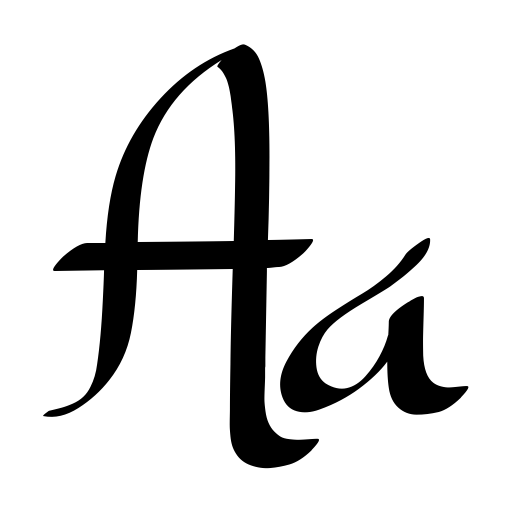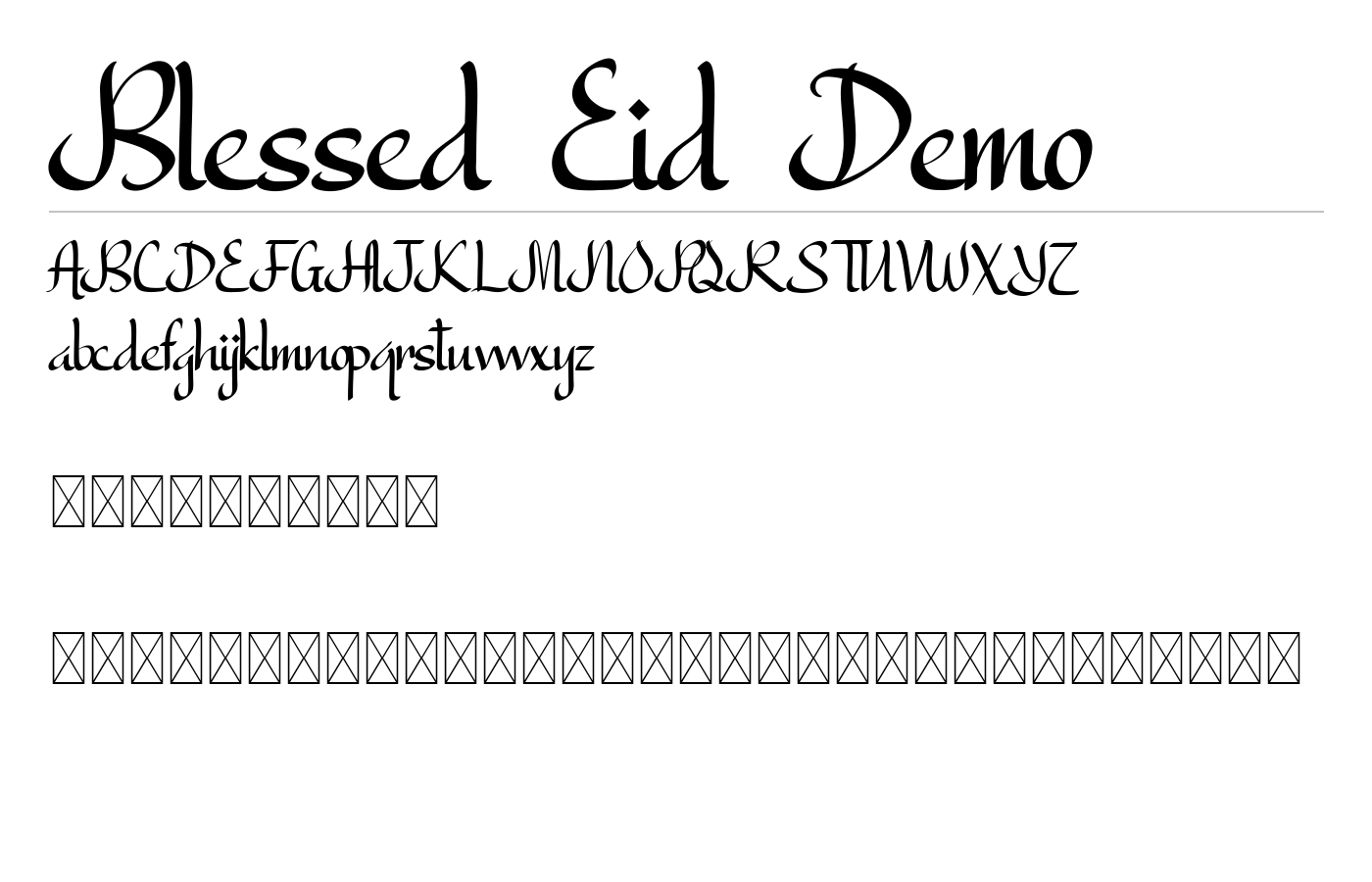
Blessed Eid Demo is a decorative script font with an elegant, handwritten feel characterized by its smooth, flowing strokes and slightly irregular shapes. It combines delicate curves with pointed terminals, creating a warm and festive mood ideal for celebratory purposes, invitations, and branding that seeks a personal, artistic touch. This font works best in headlines and display text where its unique style can shine, adding charm and sophistication to festive or creative designs.
Blessed Eid Demo Font
About Blessed Eid Demo Font
| Font family | Blessed Eid Demo Font |